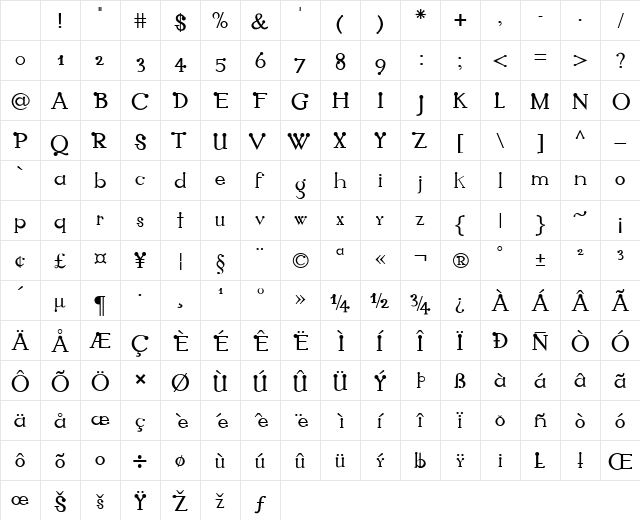
Pagani is a composed and adaptable typeface that performs quietly and consistently across a wide range of design contexts.
Pro Tip: Use Pagani in both headline and body roles to test its range before committing to a single application.